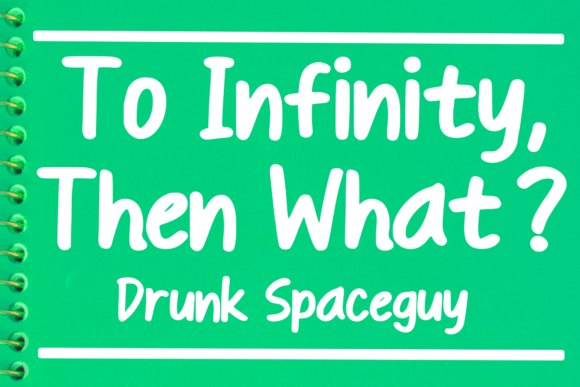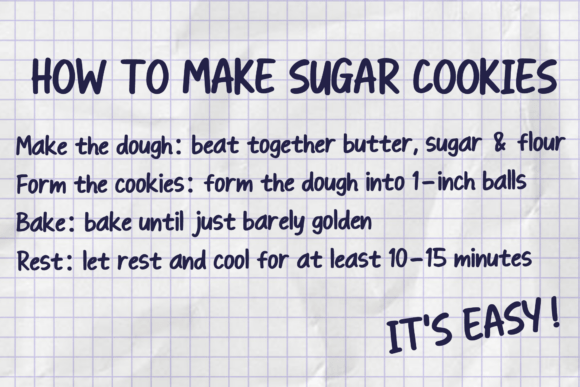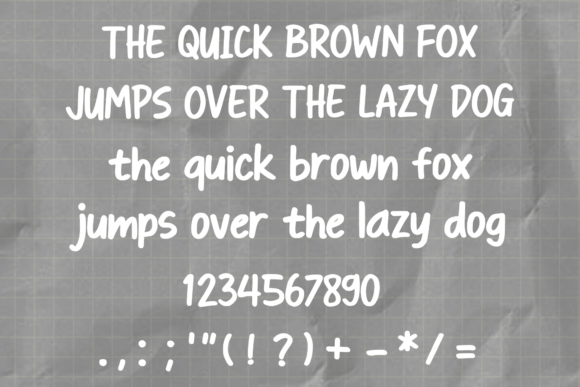
Unlock Endless Creativity with Aesthetic Marker Font
Are you a designer, crafter, or creative enthusiast looking for a unique and versatile font to elevate your design projects? Look no further than Aesthetic Marker, a hand-lettered marker font that exudes a natural and refreshing vibe. With its distinctive charm, Aesthetic Marker is poised to revolutionize your designs and take them to unprecedented heights.
The Allure of Aesthetic Marker
Aesthetic Marker is more than just a font – it’s an artistic expression that embodies the essence of creativity and imagination. Its hand-lettered style gives it a personal and organic feel, making it perfect for a wide range of design applications. Whether you’re creating captivating stickers, chic t-shirt designs, breathtaking logos, enthralling magazine or book covers, or whimsical cartoon illustrations, Aesthetic Marker is the ideal choice.
Endless Design Opportunities
With Aesthetic Marker, the design possibilities are endless. This versatile font can be used in various innovative design projects, including:
- Stickers: Add a touch of personality to your stickers with Aesthetic Marker’s playful and eye-catching style.
- T-shirt designs: Create stylish and trendy t-shirt designs that will make your brand or message stand out.
- Logo creation: Craft unique and memorable logos that reflect your brand’s identity and values.
- Magazine or book covers: Make a lasting impression with captivating cover designs that showcase Aesthetic Marker’s elegance and sophistication.
- Cartoon illustrations: Bring your cartoon characters to life with Aesthetic Marker’s whimsical and imaginative style.
The Benefits of Aesthetic Marker
So, what sets Aesthetic Marker apart from other fonts? Here are just a few benefits of using this exceptional font:
- Unique and distinctive: Aesthetic Marker’s hand-lettered style ensures that your designs will stand out from the crowd.
- Versatile: This font can be used in a wide range of design projects, from playful stickers to sophisticated logos.
- Easy to read: Aesthetic Marker’s clear and natural style makes it easy to read, even in smaller sizes.
- Highly customizable: Experiment with different colors, textures, and effects to make your designs truly unique.
Tips for Using Aesthetic Marker
To get the most out of Aesthetic Marker, here are a few tips to keep in mind:
- Experiment with colors: Aesthetic Marker looks great in a variety of colors, so don’t be afraid to try out different hues and combinations.
- Mix and match: Combine Aesthetic Marker with other fonts or graphics to create visually interesting designs.
- Pay attention to spacing: Make sure to adjust the spacing between letters and words to ensure that your text is easy to read.
- Have fun: Most importantly, enjoy the creative process and have fun with Aesthetic Marker!
In conclusion, Aesthetic Marker is a game-changing font that can elevate your design projects to new heights. With its unique and distinctive style, versatility, and ease of use, this hand-lettered marker font is perfect for designers, crafters, and creative enthusiasts alike. So why wait? Unlock the full potential of Aesthetic Marker and immerse yourself in the creative allure of this exceptional font.
Ready to experience the magic of Aesthetic Marker for yourself? With its refreshingly cool effect, this font is sure to enchant your designs and leave a lasting impression on your audience. So go ahead, get creative, and discover the endless possibilities of Aesthetic Marker Font.